14 Signature Fonts Perfect for Wedding & Lifestyle Brands
An elegant signature font can instantly make a design feel personal, refined, and memorable. Whether you’re creating a photographer’s watermark, a luxury logo, premium packaging, or wedding stationery, the right signature font adds the authenticity of handwritten lettering while remaining polished enough for professional branding.
In this collection, we’ve selected 15 elegant signature fonts based on how they’re most often used—not just how they look. Some are perfect for subtle watermarks and creative logos, while others shine on product packaging, social media branding, or personal signatures. Throughout the guide, we’ll point out which fonts remain readable at smaller sizes and which deserve room to let their flowing flourishes stand out.
Elegant Signature Fonts for a Photographer or Artist Logo
For photographers, artists, illustrators, and creative studios, a signature font should feel effortless, authentic, and unmistakably personal. Soft curves, connected strokes, and natural movement create the impression of a genuine handwritten signature without sacrificing clarity. These fonts work beautifully as watermarks, portfolio logos, social media branding, and creative business identities where personality matters just as much as professionalism.
Andalucia Signature Font
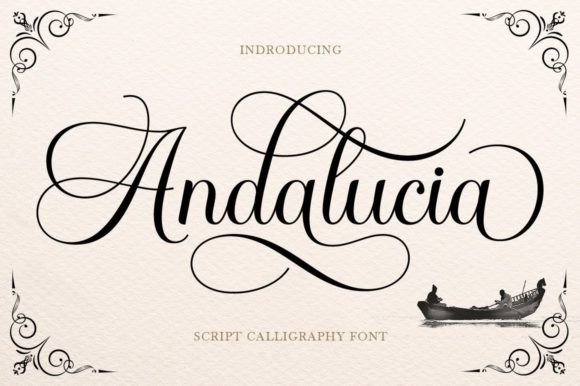
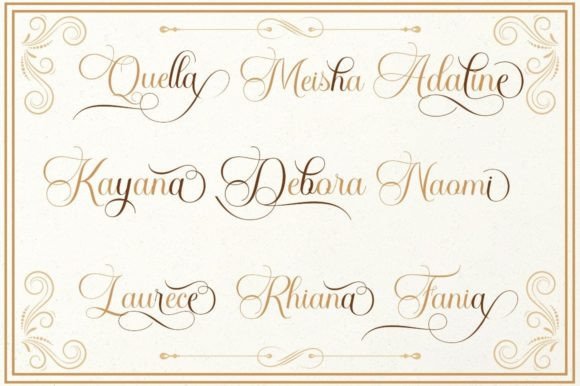
Andalucia is an elegant calligraphic script font that blends classic Copperplate calligraphy with modern hand-lettering artistry. I love using it for wedding invitations, luxury branding, logos, fashion projects, beauty packaging, menus, stationery, greeting cards, book covers, magazines, labels, and editorial designs because its graceful letterforms create a refined and sophisticated look. The beautiful alternate characters and flowing connections add versatility and charm, making every design feel timeless, luxurious, and effortlessly elegant.
Sign Rathi Signature Font
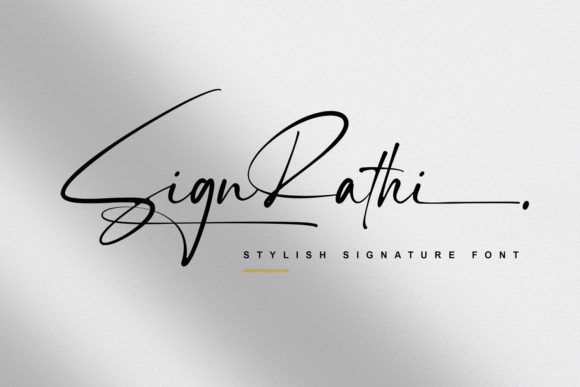
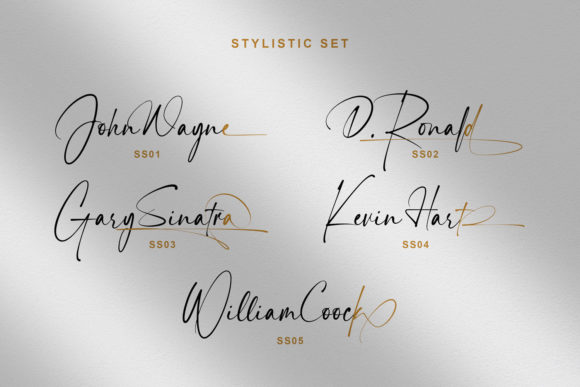
Sign Rathi is an elegant handwritten script font featuring thin, flowing cursive strokes that bring a graceful and sophisticated touch to any design. I love using it for signature logos, branding, wedding invitations, stationery, packaging, beauty products, social media graphics, and personal projects because its refined handwritten style feels both modern and authentic. With beautiful glyphs and decorative swashes, Sign Rathi offers endless creative possibilities, making every design look polished, stylish, and effortlessly elegant.
Breathine Signature Font
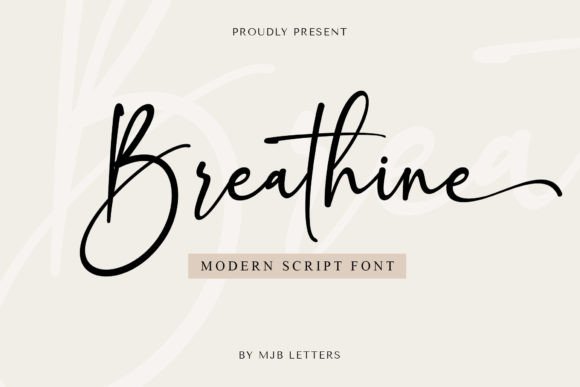
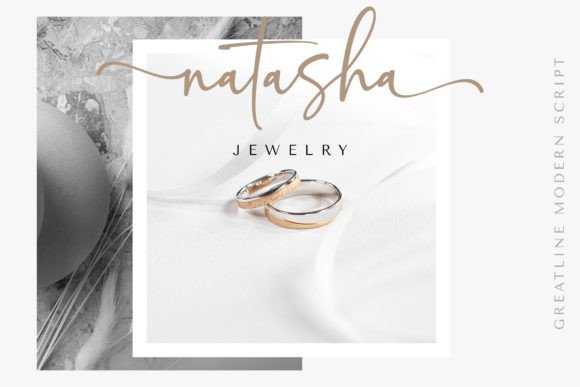
Breathine is a magical script font that blends elegant calligraphy with graceful handwritten strokes to create a truly enchanting look. I love using it for Instagram graphics, branding, wedding invitations, greeting cards, DIY crafts, packaging, logos, and social media content because its flowing letterforms instantly add charm and sophistication. The delicate curves and artistic style make every design feel elegant, creative, and full of personality, turning even simple text into a beautiful visual statement.
Beautica Beautiful Signature Font
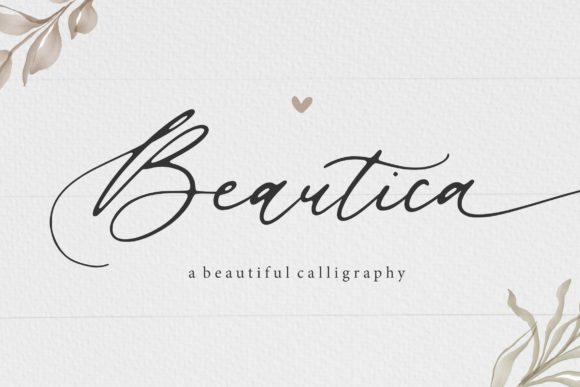
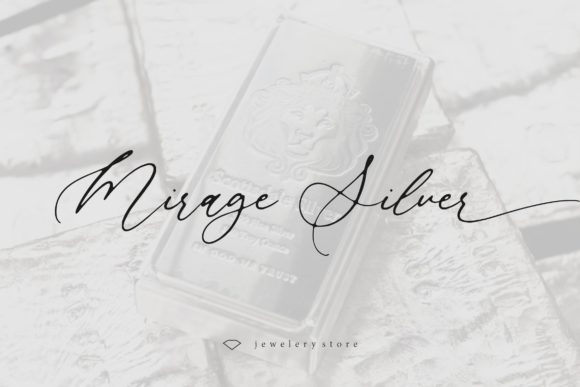
Beautica is a beautiful calligraphy font that features elegant flowing strokes and timeless handwritten charm. I love using it for wedding invitations, branding, logos, greeting cards, stationery, packaging, beauty products, and social media graphics because its graceful letterforms create a refined and romantic look. The smooth calligraphic style adds warmth and sophistication to every design, making Beautica a perfect choice for projects that call for elegance, creativity, and lasting visual appeal.
Bacalisties Signature Font
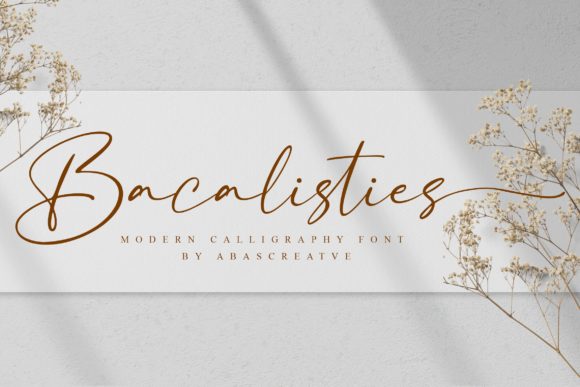
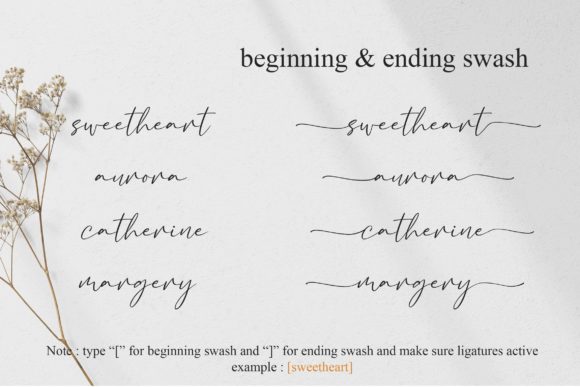
Bacalisties is a stylish handwritten font that features delicate, thin strokes and a smooth, elegant flow. I love using it for branding, logos, wedding invitations, stationery, social media graphics, packaging, greeting cards, and lifestyle designs because its clean handwritten style creates a modern and sophisticated look. With beautiful glyphs and decorative swashes, Bacalisties offers creative flexibility while adding a graceful, personal touch that makes every design feel refined, charming, and effortlessly stylish.
Bailenson Signature Font
Bailenson is an elegant calligraphic font inspired by the graceful handwriting of Italian women and the timeless beauty of ancient manuscripts. I love using it for wedding invitations, branding, logos, greeting cards, book covers, business cards, certificates, and luxury stationery because its refined letterforms create a sophisticated and classic visual appeal. The harmonious calligraphy style adds warmth, elegance, and authenticity, making Bailenson a perfect choice for formal, romantic, and premium design projects.
Vintage Story Signature Font
Vintage Story is a charming handwritten script font that captures the warmth and rustic elegance of vintage handwriting. I love using it for wedding invitations, love letters, logos, signatures, quotes, greeting cards, branding, and packaging because its flowing letterforms create an authentic and timeless look. Featuring beautiful ligatures, stylistic alternates, and multilingual support, Vintage Story adds personality, romance, and handcrafted charm to every design, making it perfect for projects with a nostalgic and elegant aesthetic.
Affection Signature Font
Affection is a charming calligraphy font that blends effortless swashes with elegant, flowing letterforms to create a stylish handwritten look. I love using it for wedding invitations, branding, logos, greeting cards, social media graphics, packaging, stationery, and beauty projects because its graceful script adds warmth and sophistication to every design. The smooth curves and captivating details give Affection a romantic, timeless appeal, making it a perfect choice for projects that deserve a refined and memorable handwritten touch.
Wintersnow Signature Font
Wintersnow is an elegant handwritten script font with flowing strokes and timeless calligraphic charm. I love using it for wedding invitations, branding, logos, greeting cards, stationery, packaging, beauty products, and social media graphics because its graceful letterforms create a warm and sophisticated look. The smooth handwritten style adds a personal, romantic touch to every project, making Wintersnow a perfect choice for designs that call for elegance, creativity, and lasting visual appeal.
Samantha Signature Font
Samantha Signature is an elegant handwritten signature font that combines graceful strokes with timeless sophistication. I love using it for personal branding, logos, wedding invitations, greeting cards, stationery, packaging, beauty projects, and social media graphics because its flowing signature style creates a refined and authentic look. The delicate, feminine letterforms add warmth and personality, making every design feel polished, luxurious, and effortlessly memorable.
Brittany Signature Font
The Brittany Signature is an elegant signature script font that combines fashionable style with graceful handwritten strokes. I love using it for branding, logos, wedding invitations, product packaging, social media graphics, advertisements, business cards, and personal stationery because its flowing curves create a refined and authentic signature look. The sophisticated inky style adds warmth, luxury, and personality to every design, making The Brittany Signature a perfect choice for projects that call for elegance, creativity, and a premium handwritten aesthetic.
Romantically Signature Font
The Romantically is a lovely signature script font with a natural handwritten style and a classy, refined feel. Its two included styles blend beautifully together, adding a unique and elegant touch to any creative project. Perfect for branding, photography, invitations, quotes, watermarks, advertisements, product designs, and labels, this font brings a personal and sophisticated character to every composition.
The Wedding Signature Font
The Wedding Signature is an elegant handwritten script font that showcases beautifully crafted letterforms with refined signature-style strokes. I love using it for wedding invitations, branding, logos, greeting cards, stationery, product packaging, social media graphics, and luxury event designs because its graceful flow adds sophistication and romance to every project. The detailed craftsmanship and timeless handwritten style make The Wedding Signature a versatile choice for creating polished, memorable, and effortlessly elegant designs.
Willowshine Signature Font
Willowshine is a modern calligraphy font with a stylish and elegant touch. Its authentic beginning and ending swashes, combined with smooth curves, create a graceful and joyful aesthetic. Perfect for wedding invitations, branding, and creative projects, Willowshine adds a beautiful handwritten charm and sophisticated character to every design.
Where to Use Wedding Signature Fonts
A beautiful signature font brings warmth, elegance, and personality to wedding designs. These wedding signature fonts are especially well suited for:
- Couple’s monograms and logos – Create a unique handwritten identity for invitations, websites, and keepsakes.
- Wedding invitations and save-the-dates – Add a romantic focal point that feels personal and memorable.
- Welcome signs and seating charts – Make names stand out with graceful, flowing lettering.
- Thank-you cards and wedding stationery – Finish every piece with a heartfelt handwritten touch.
- Wedding websites and social media – Keep your visual identity consistent across both print and digital designs.
- Branding for wedding planners, photographers, and stylists – Design an elegant signature-style logo that feels authentic and professional.
Frequently Asked Questions
What are wedding signature fonts?
Wedding signature fonts are handwritten script typefaces designed to resemble a natural signature. They feature smooth, connected strokes and an effortless flow, making them ideal for names, monograms, logos, and elegant wedding stationery.
What is the difference between signature and calligraphy fonts?
Signature fonts imitate the quick, relaxed movement of a real handwritten signature, while calligraphy fonts are more formal and decorative, inspired by traditional pen-and-ink lettering with carefully crafted thick and thin strokes.
Can I use wedding signature fonts for commercial projects?
Most premium fonts include commercial licensing options, but every font has its own license. Always check the product page before using a font for client work, branding, or products you plan to sell.
Are signature fonts good for wedding logos?
Absolutely. Signature fonts are one of the most popular choices for couple monograms, wedding logos, and personal branding because they feel elegant, intimate, and uniquely handcrafted.
How do I keep a signature font easy to read?
Use signature fonts for names, initials, short quotes, or headings rather than long paragraphs. Pair them with a clean serif or sans serif for supporting information, and leave enough space around decorative flourishes so every letter remains clear.
Final Thoughts
The best wedding signature fonts capture the beauty of genuine handwriting while remaining refined enough for modern wedding design. Whether you’re creating invitations, signage, stationery, or a custom wedding logo, a carefully chosen signature font adds a timeless personal touch that makes every detail feel more meaningful.